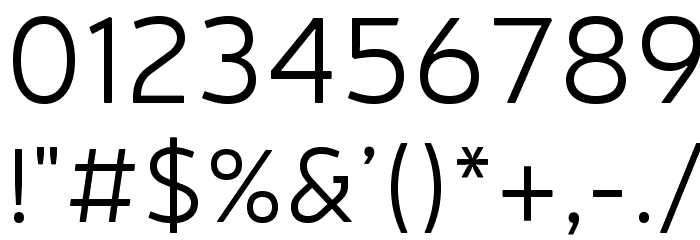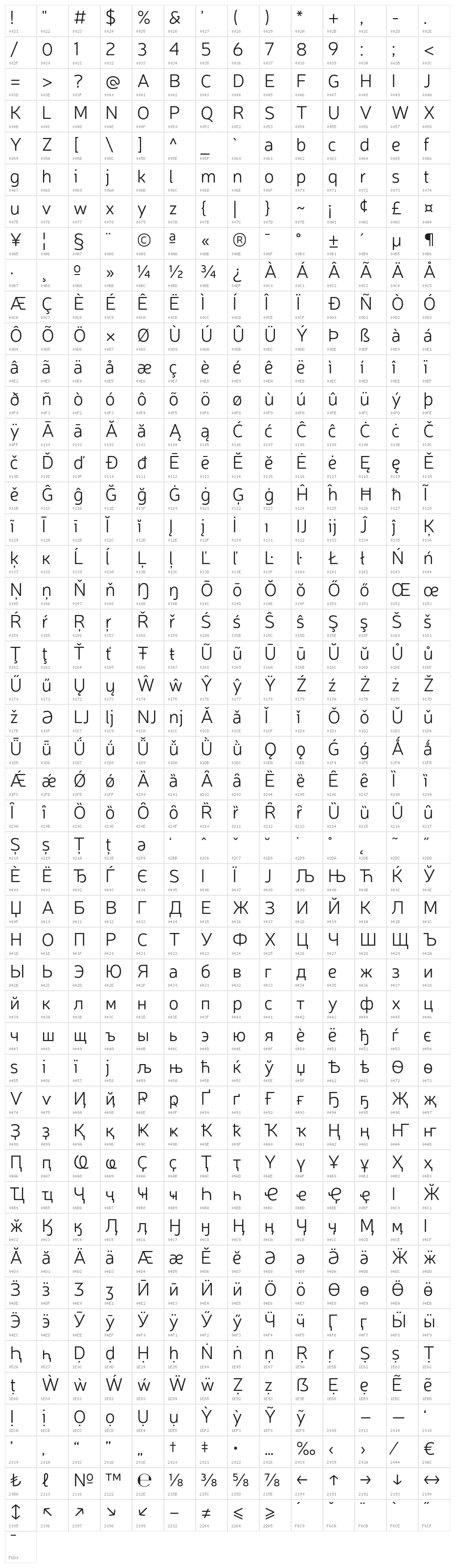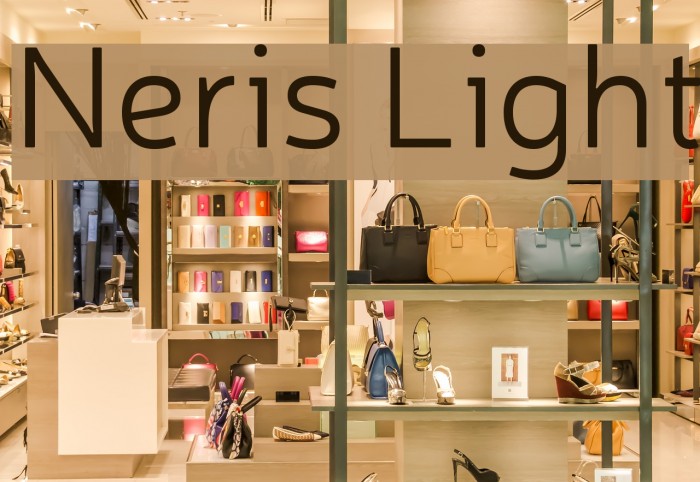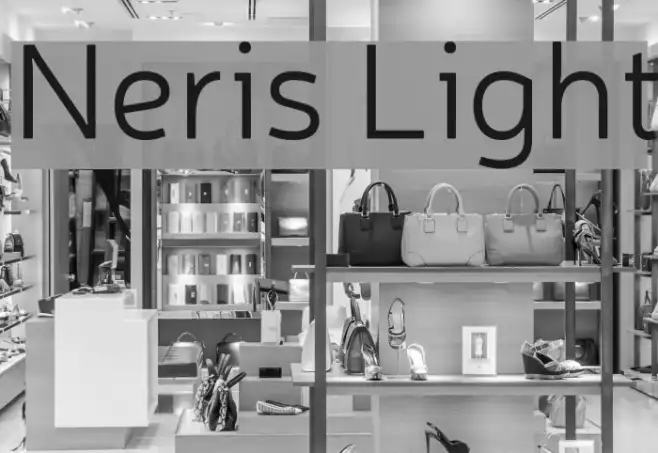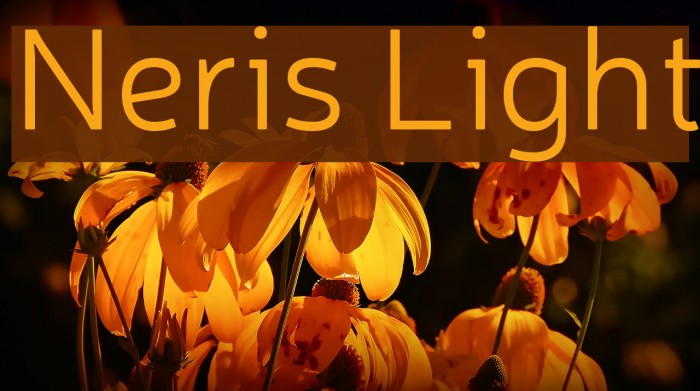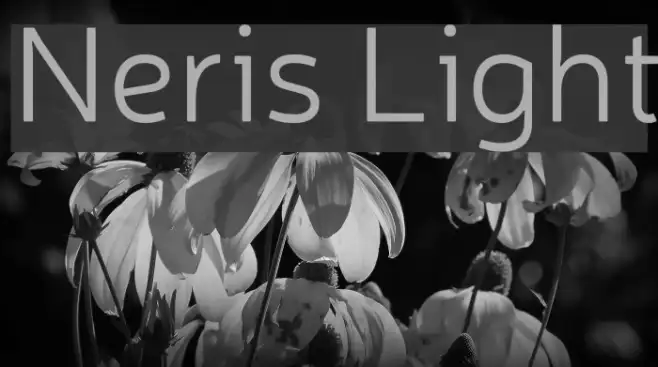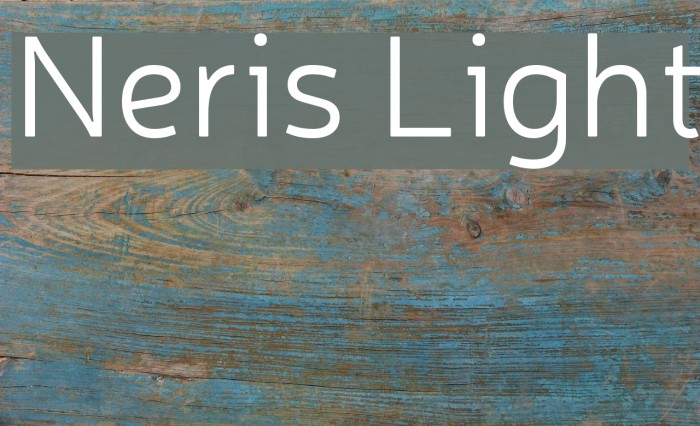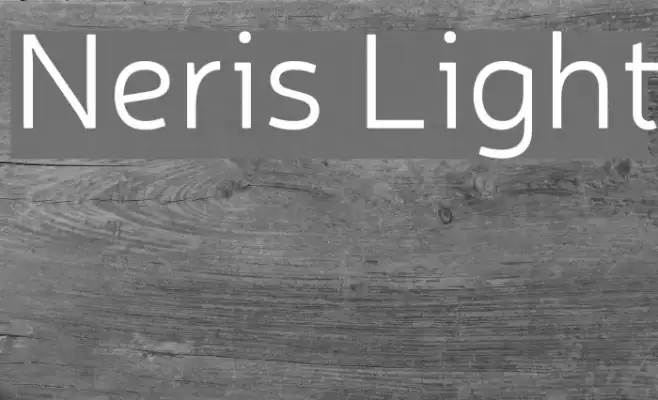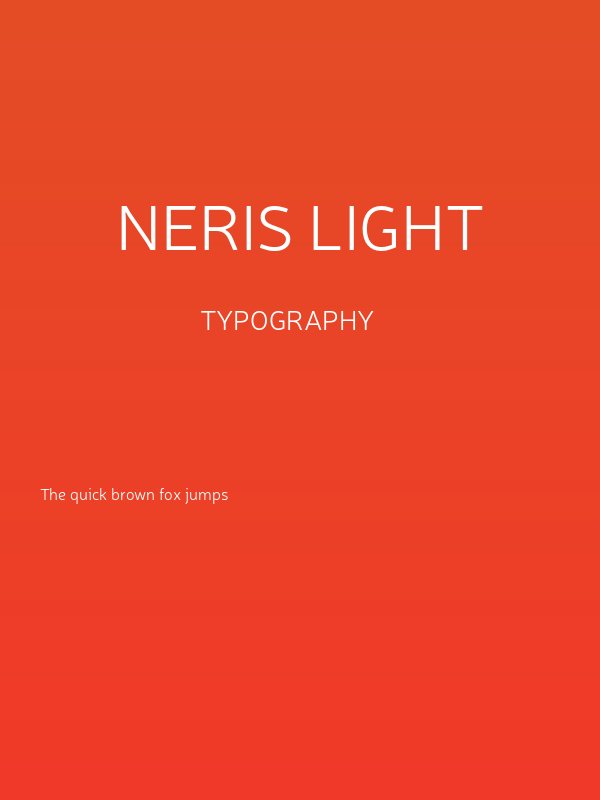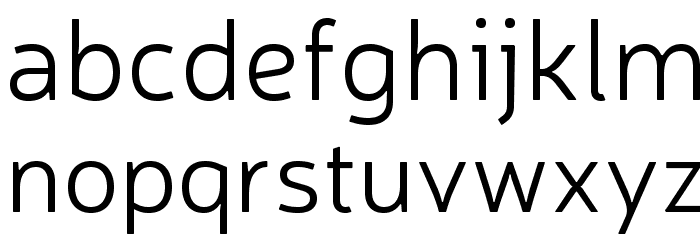
Neris Light Font
Neris Light Description
This typeface is a clean and modern sans-serif font characterized by its geometric shapes and smooth curves. The letters are evenly spaced, providing a balanced and harmonious appearance. The uppercase letters are bold and assertive, while the lowercase letters maintain a friendly and approachable feel. Numbers are clear and easily distinguishable, making them suitable for various applications. Special characters are well-integrated, ensuring versatility in design projects. The overall design is minimalistic, making it ideal for contemporary and professional uses.